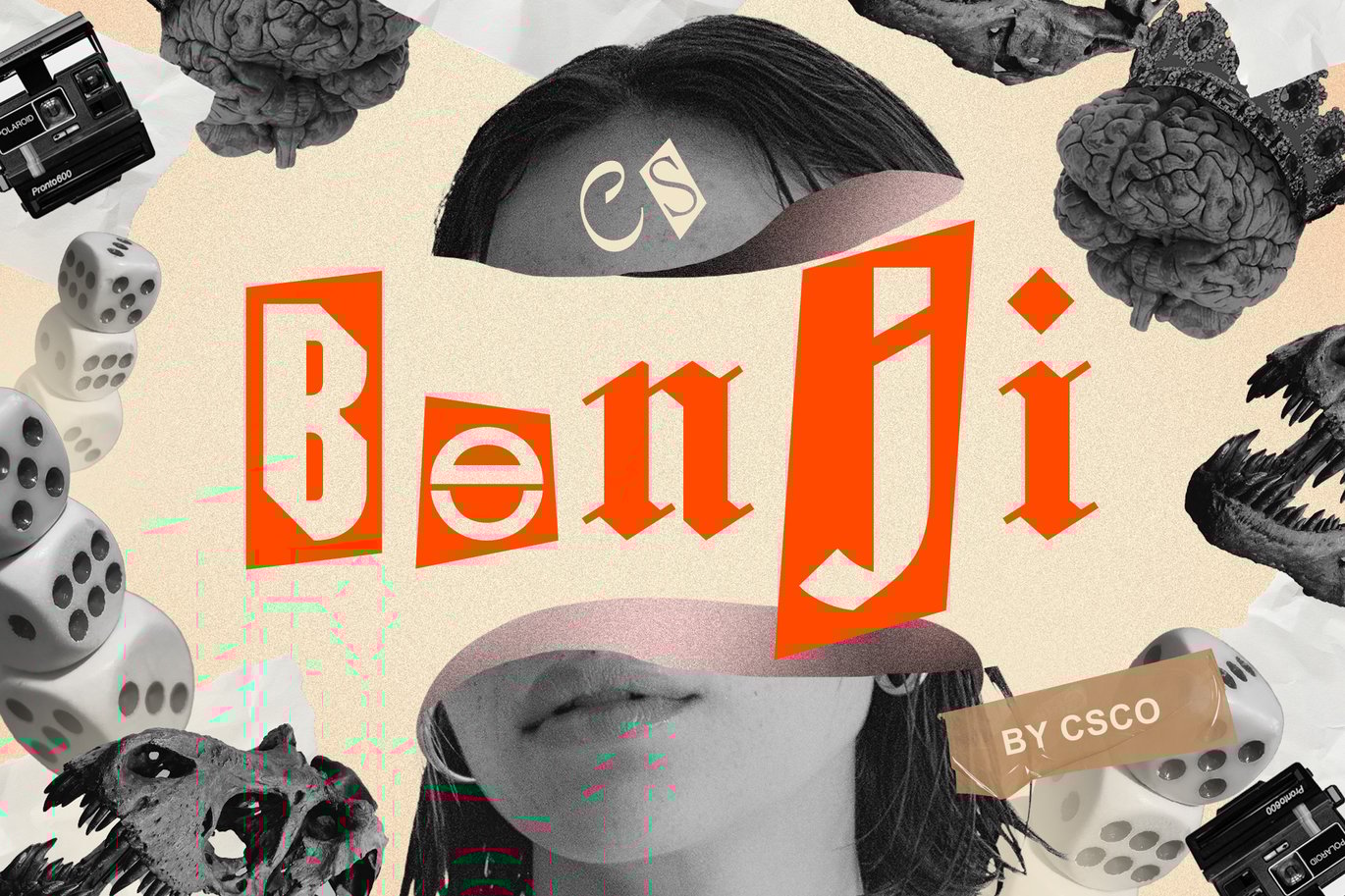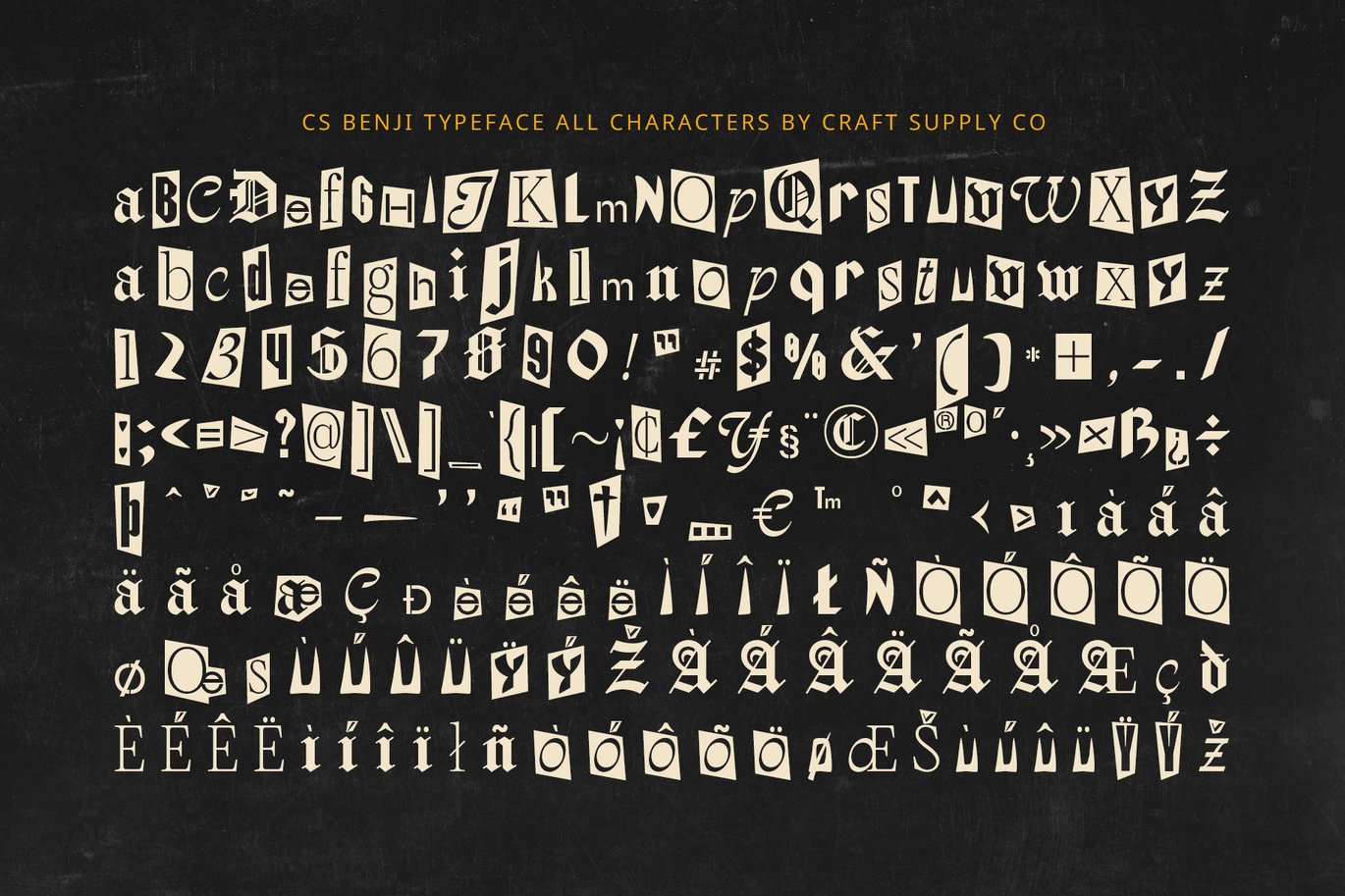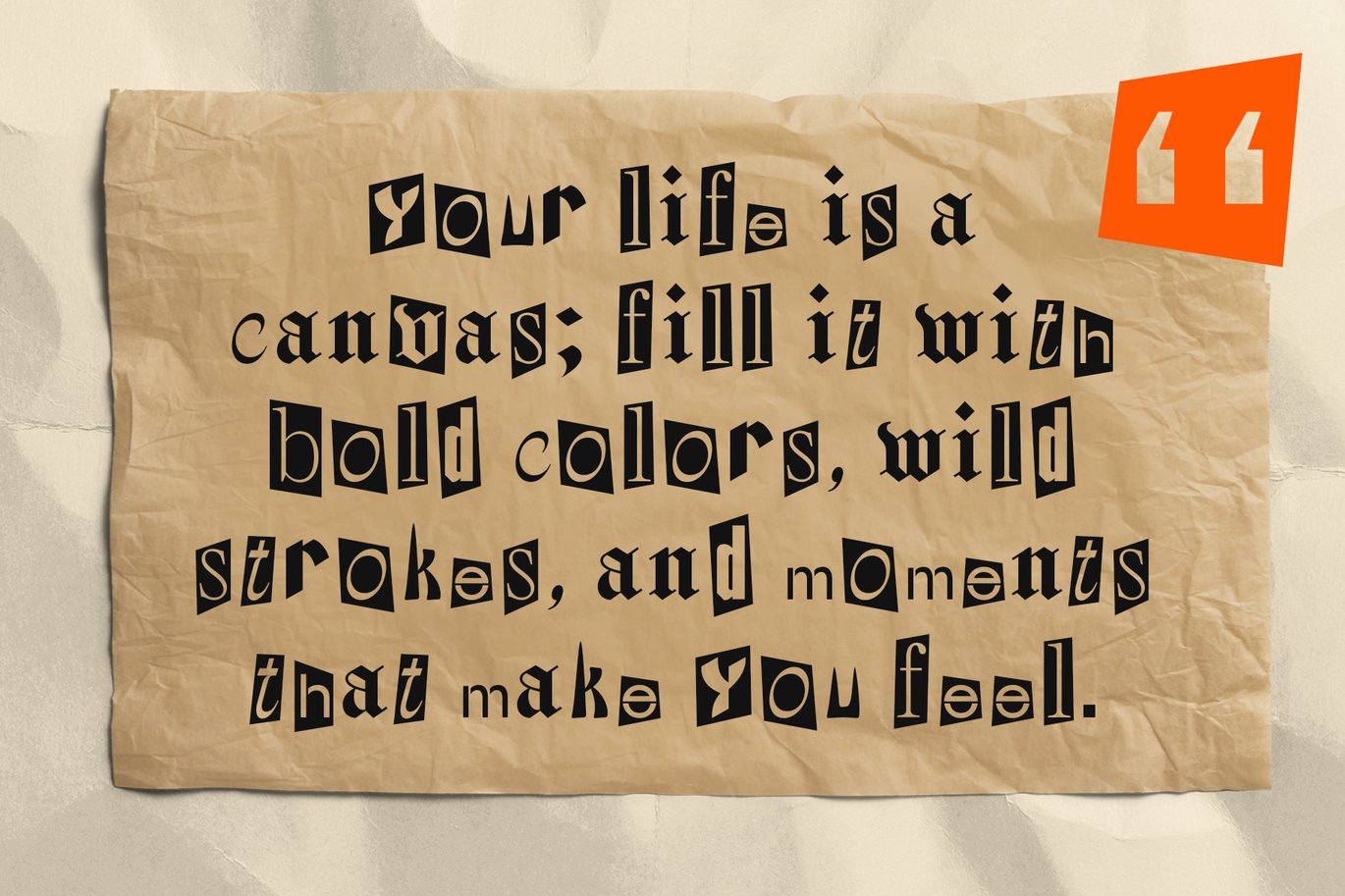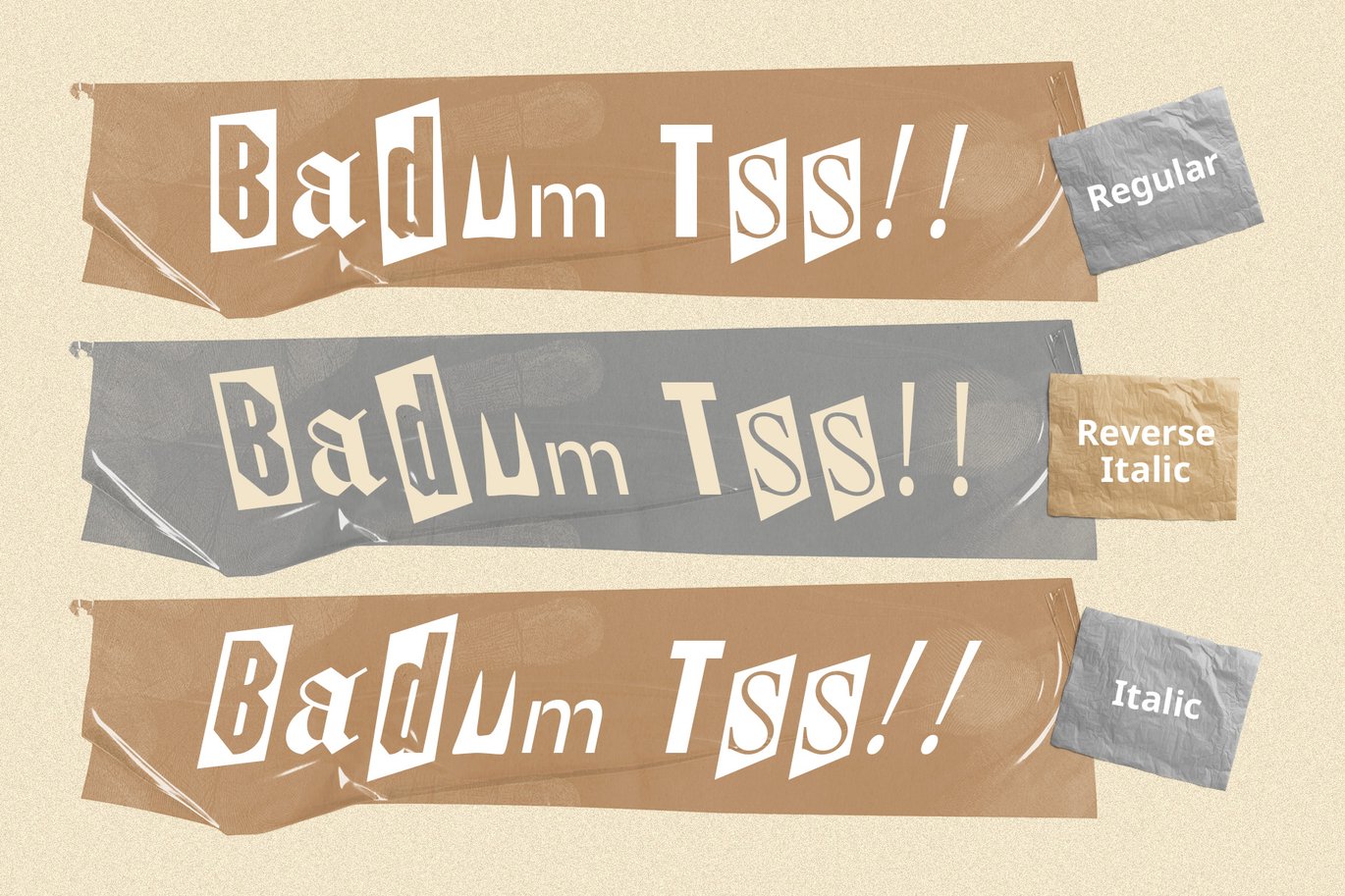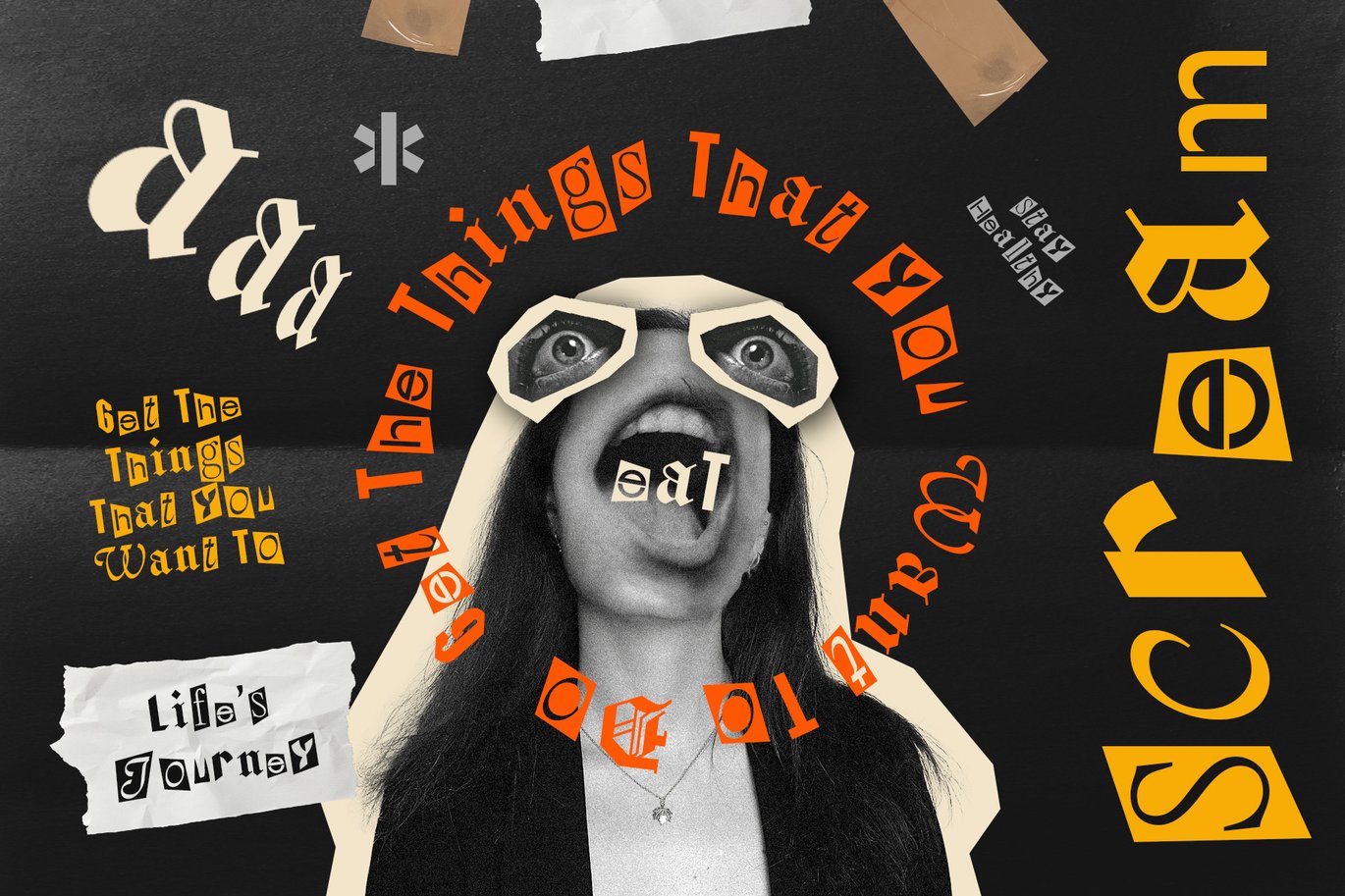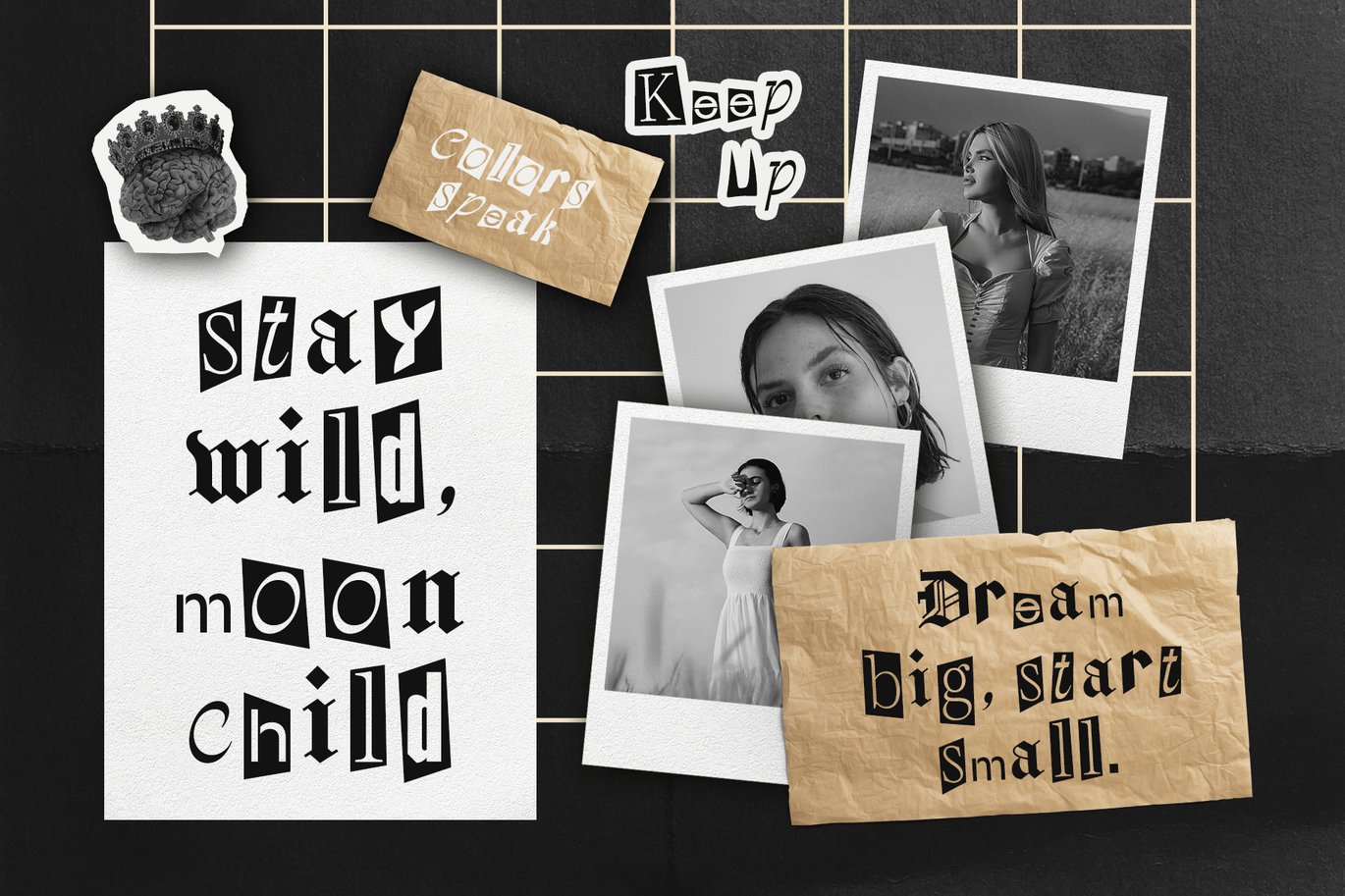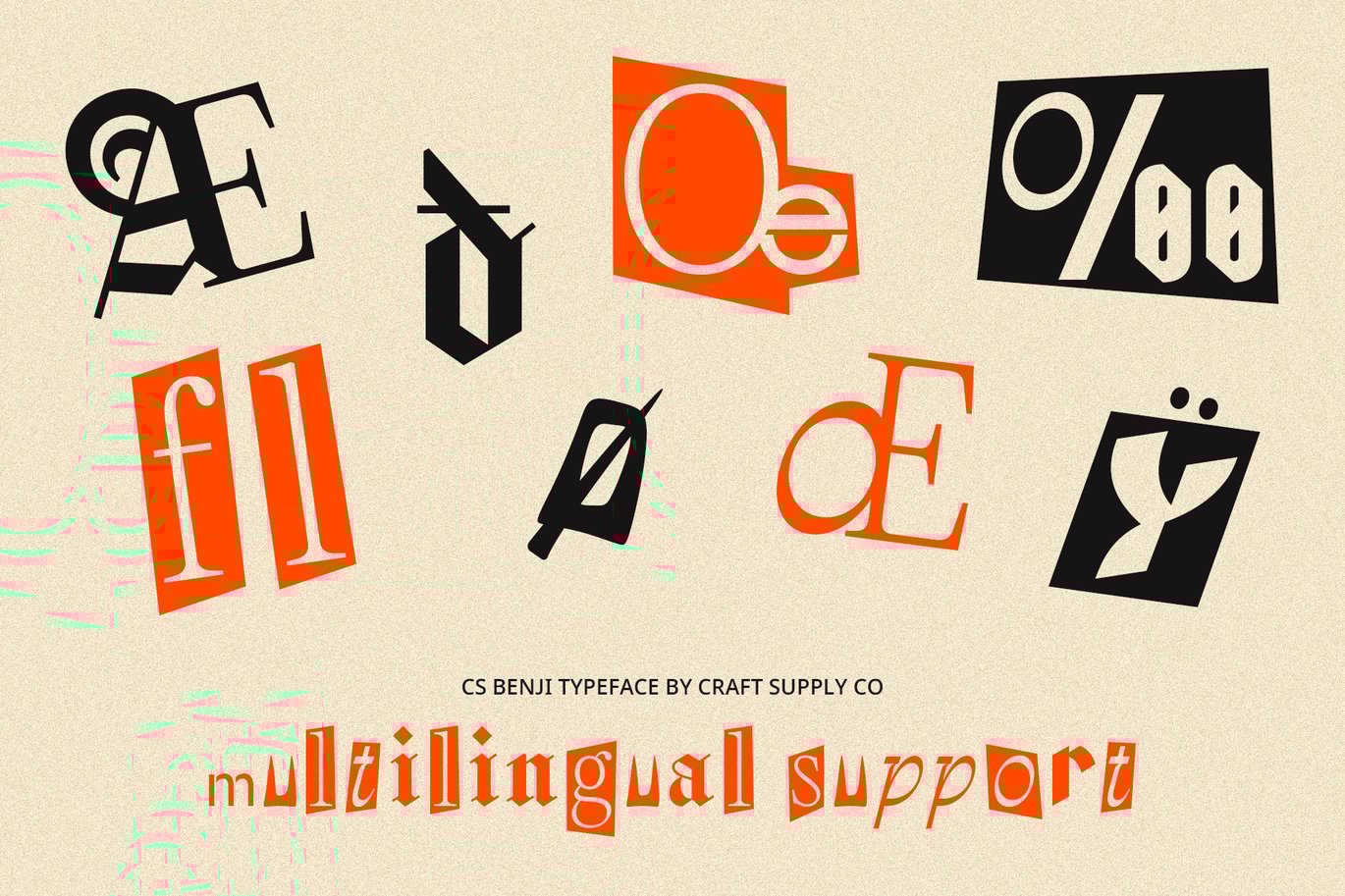
Benji – Collage Font
CS Benji – Collage Font: Vibrant, Funky, and Full of Character
Unique Display Font with Collage Style
CS Benji – Collage Font is a distinctive display font inspired by the bold, playful feel of ransom notes and collage art. This font brings together an eclectic mix of letterforms, incorporating various textures, colors, and patterns for a truly artistic look. The result is a lively, eye-catching design ideal for projects aiming to make a memorable, creative statement.
Vibrant Textures and Colors for Dynamic Impact
Each letter in CS Benji tells its own story, combining different textures, colors, and even styles within the same character set. This colorful variety gives the font a handcrafted, DIY feel that’s perfect for music posters, creative branding, or youth-oriented projects. Its layered look instantly draws attention, making it a great choice for designs meant to stand out in print or digital formats.
Irregular Shapes for Expressive Freedom
CS Benji’s unconventional, uneven shapes give it a free-spirited and rebellious charm, reflecting the fun and chaos of collage art. The irregular letterforms provide a natural, spontaneous energy, adding depth and creativity to each word. This effect makes the font well-suited for designs that emphasize individuality and out-of-the-box thinking, such as art exhibitions, album covers, and event flyers.